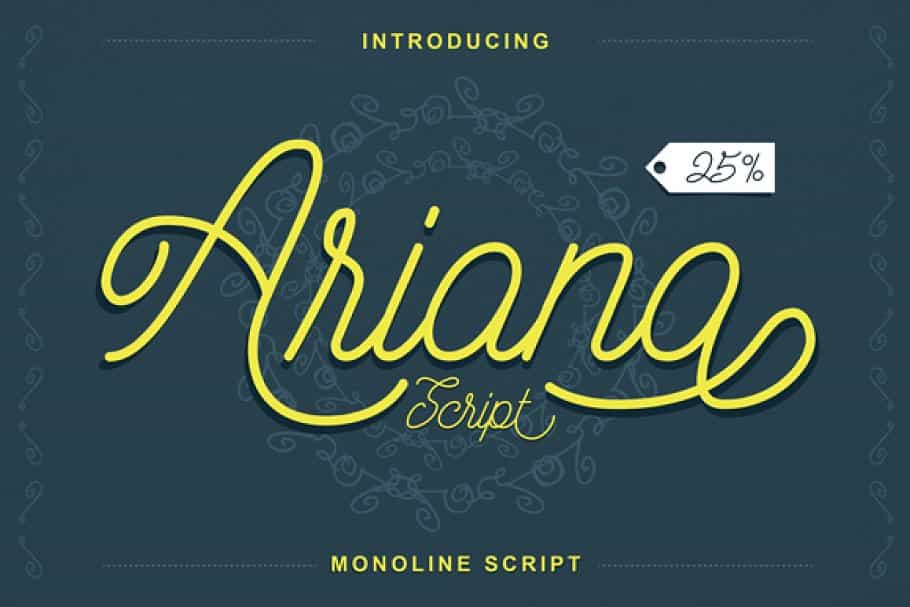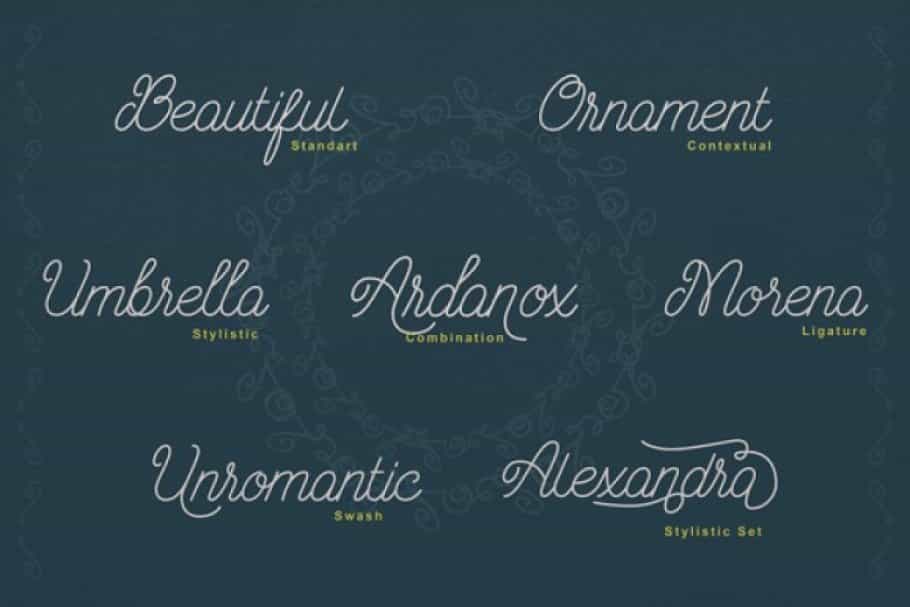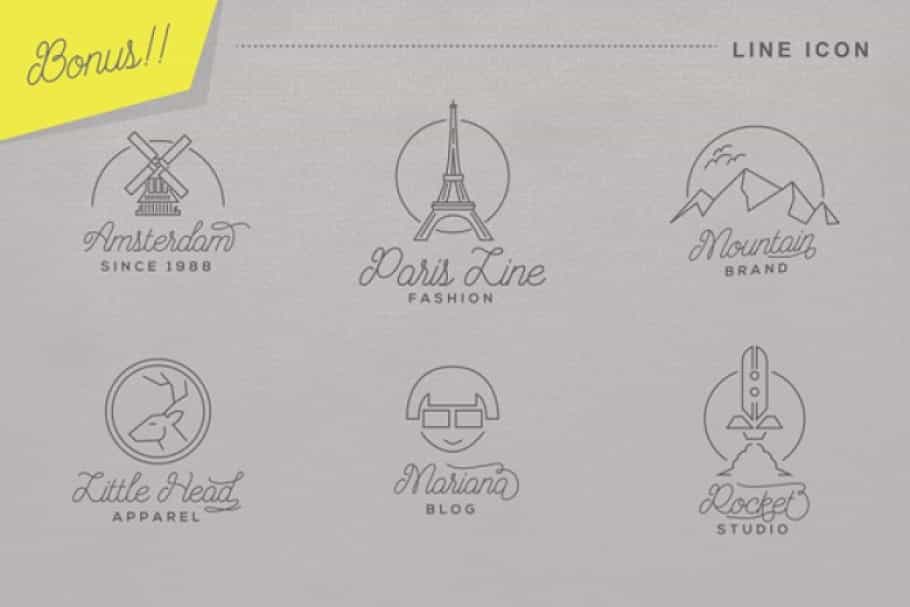
Introducing Ariana Font. Ariana is a script typeface that was designed to be used for one specific line. Ariana Script is perfect for any project like logo, wedding invitation, greeting card, poster and the likes. It has 538 glyphs with alternate characters which include opentype features. Stylistic alternatives, Ornaments, Swashes and many others. You can get all those alternate characters by using OpenType savvy programs like Adobe Illustrator and Adobe InDesign.